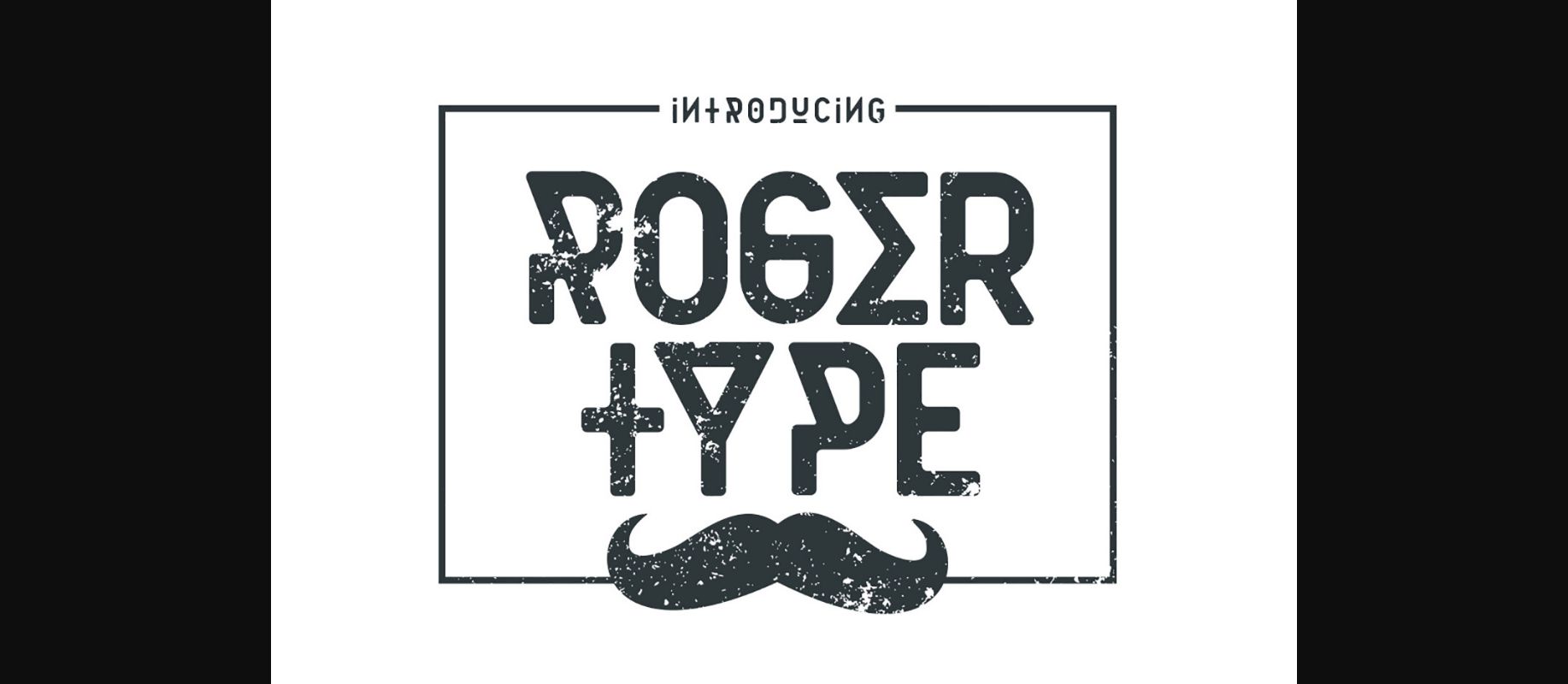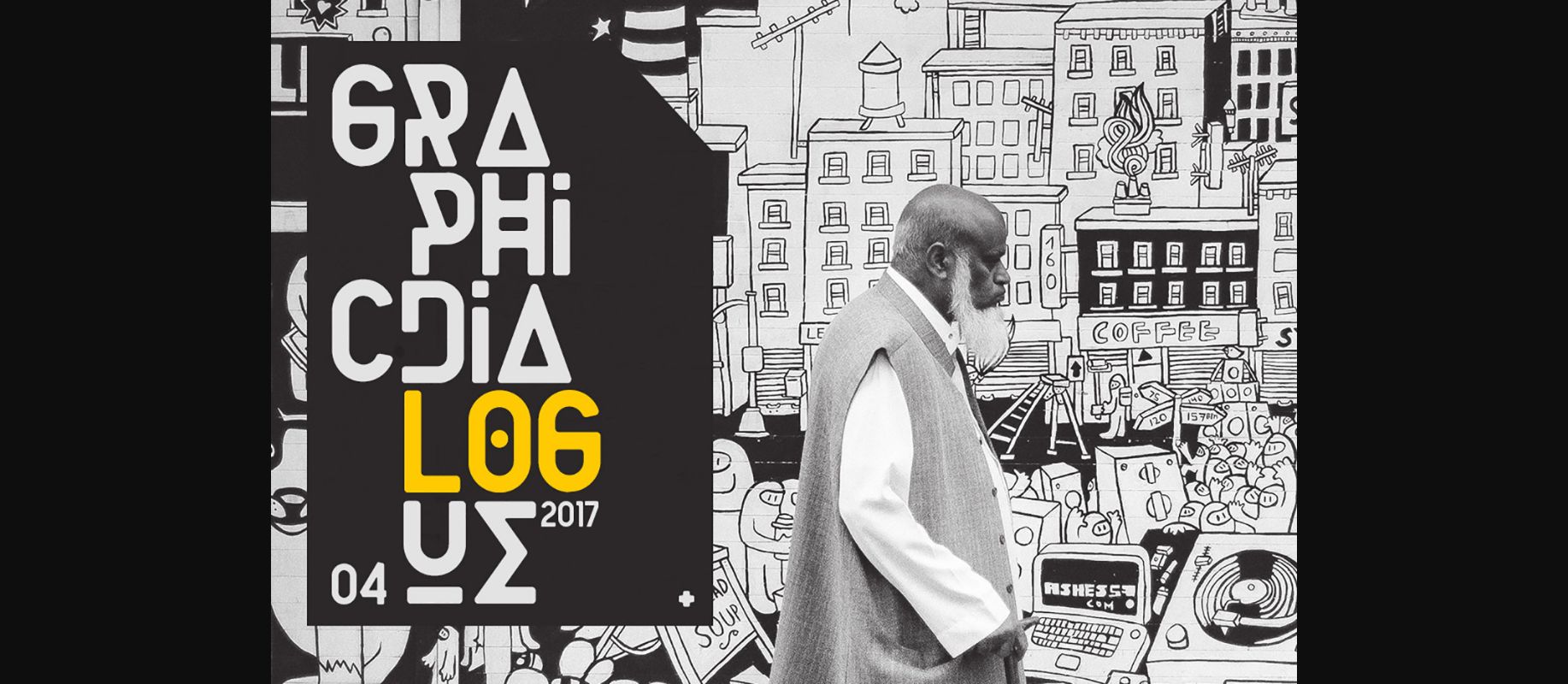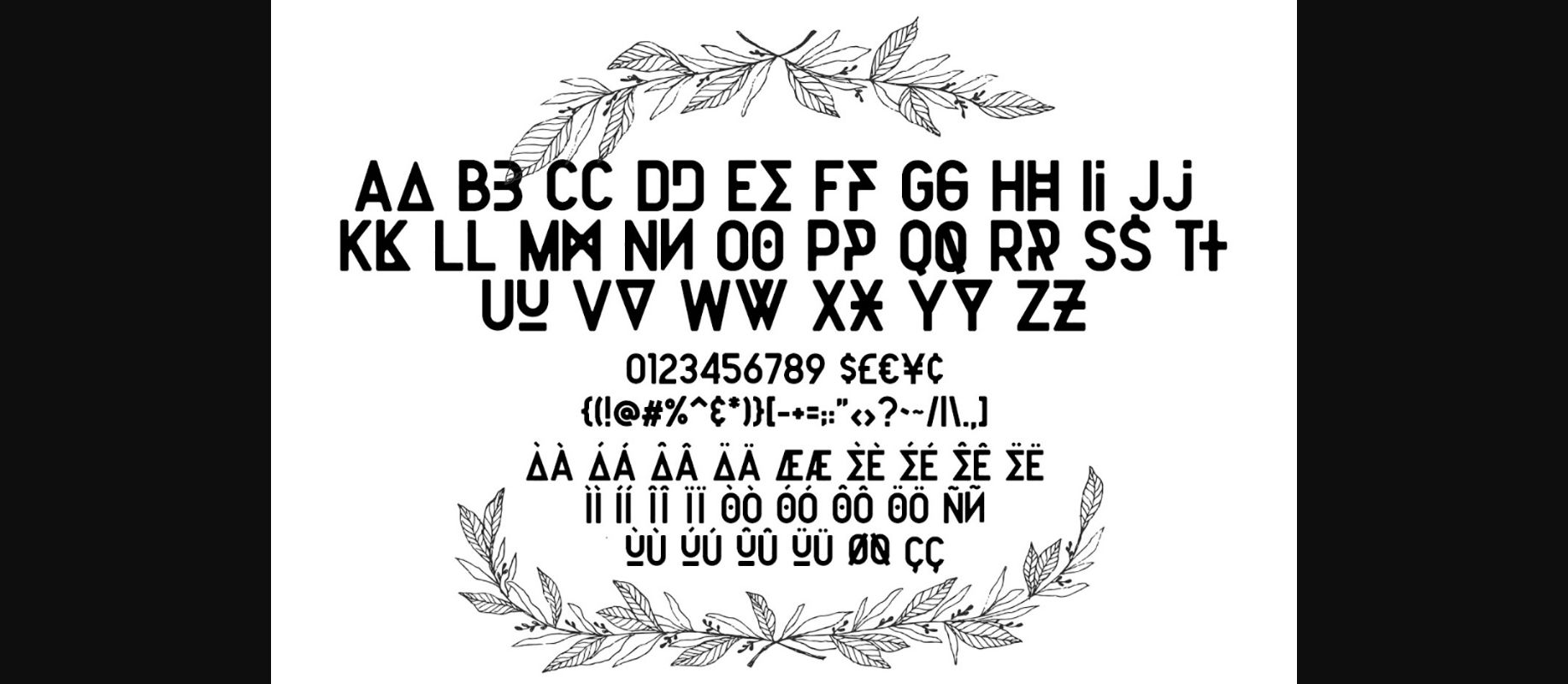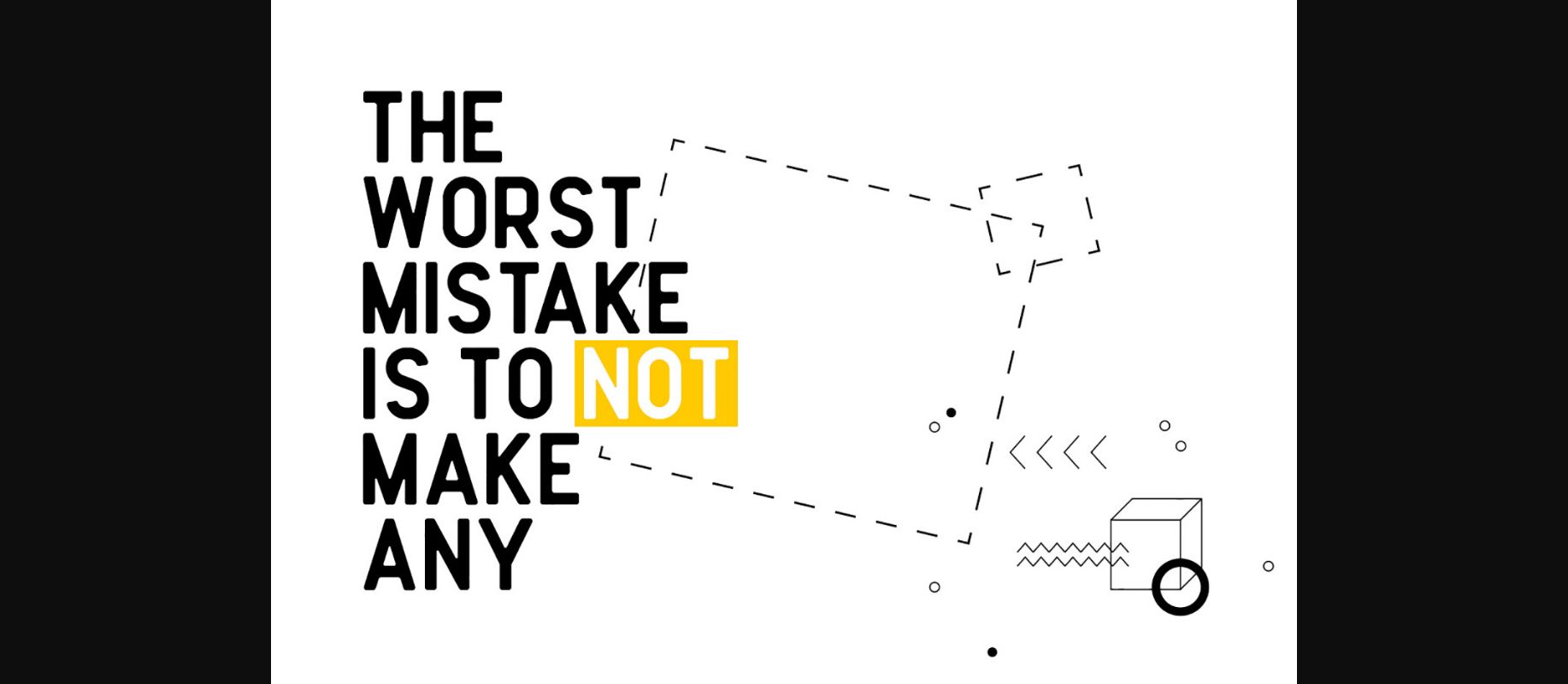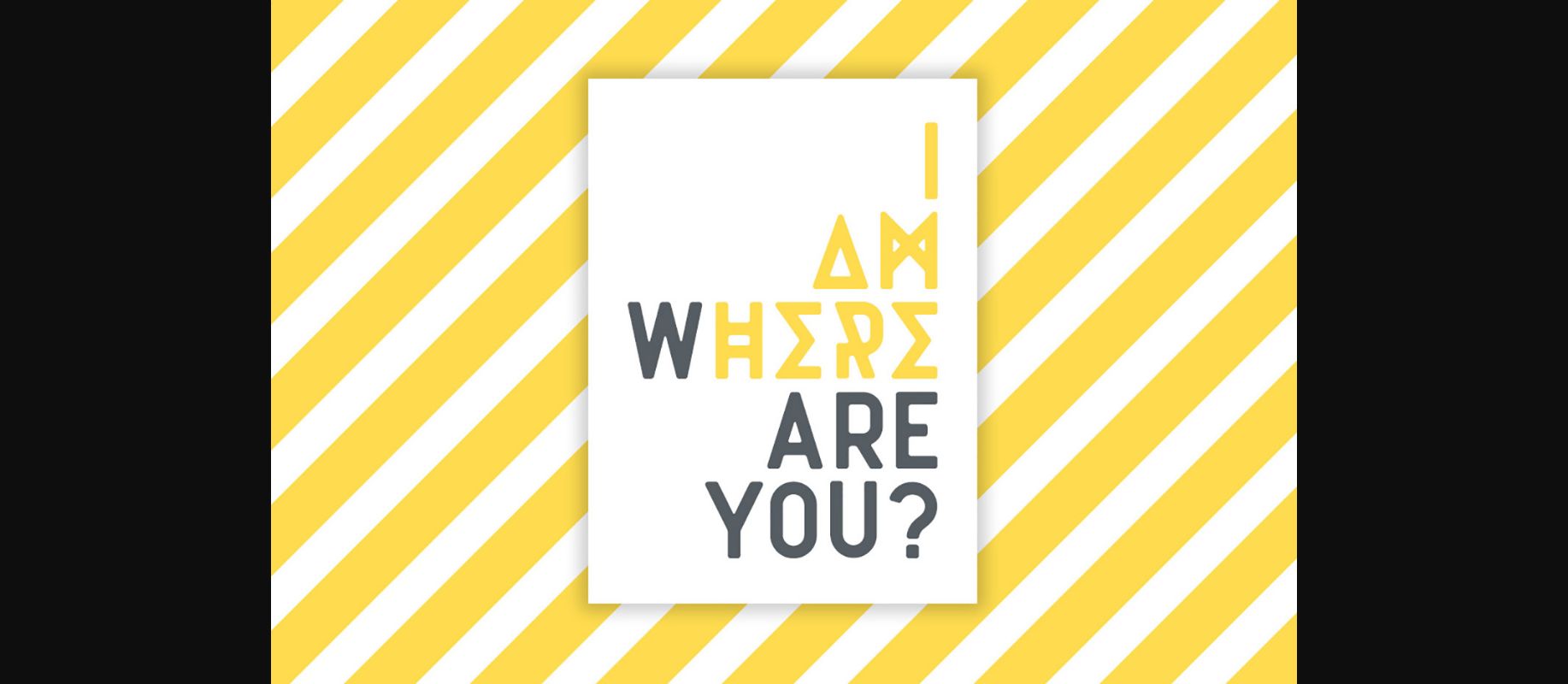
About Roger Type Font
Roger Type is a clean and simple vintage decorative font, with smooth edges to simulate vintage design. This is a bold and extremely modern typeface, guaranteed to be the coolest font in your collection.